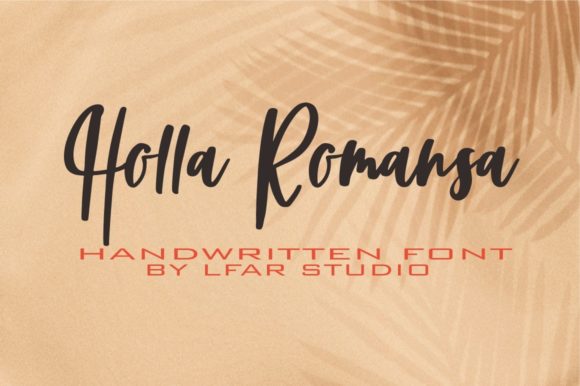
Immerse yourself in the world of enchanting elegance with "Holla Romansa," a script font that exudes a timeless allure. Its delicate strokes and effortlessly flowing characters bring a touch of grace and sophistication to your creative projects.
Designed with meticulous attention to detail, "Holla Romansa" possesses a unique charm that captures the essence of romance and beauty. Its carefully crafted curves and intricate swashes ignite your imagination, inspiring you to create designs that leave a lasting impression.
Whether you're crafting heartfelt invitations, delicate wedding stationery, or eye-catching branding materials, "Holla PUA" empowers you to convey your message with a touch of elegance and class. Its PUA encoding ensures effortless access to a vast array of glyphs and swashes, making it the perfect choice for adding intricate details and flourishes to your designs.
Indulge in the exquisite beauty of "Holla Romansa" and unlock a world of creative possibilities. Embrace the romance, embrace the elegance, and let your designs bloom with beauty.